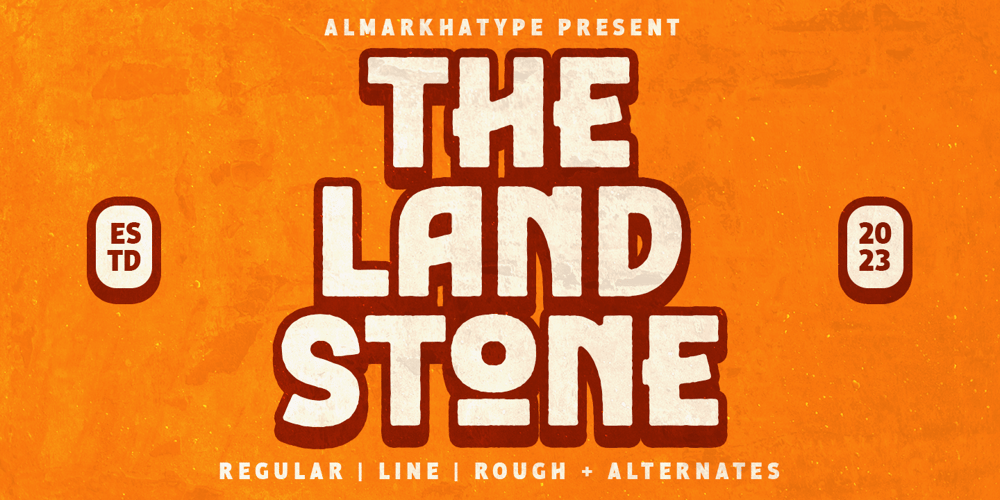
The Landstone Font Family was designed by Abdul Malik Wisnu, Rivo Adriansyah and published by Almarkha Type. The Landstone contains 4 styles and family package options. Introducing The Landstone, your ultimate retro font, now available in three dynamic styles: regular, rough, and line. Infused with a nostalgic flair, this font injects vigor and individuality into your designs, inspired by the Retro Poster arts and architectural movement. The Landstone boasts meticulously crafted letters that amplify every design, exuding a sense of boldness and character. Whether you’re creating captivating headlines, eye-catching posters, memorable logos, badges, or beyond, The Landstone is perfect for a plethora of projects. Its versatility shines in any design application, promising to elevate your creative endeavors to new heights. Experience the unmatched flexibility of The Landstone for your next project, where every letter tells a story of craftsmanship and style!Accessible in Adobe Illustrator, Adobe Photoshop, Adobe InDesign, and even Microsoft Word. PUA Encoded Characters Fully accessible without additional design software. Fonts include multilingual support. Image used: All photographs/pictures/vectors used in the preview are not included, they are intended for illustration purposes only.Cheers!Thank You